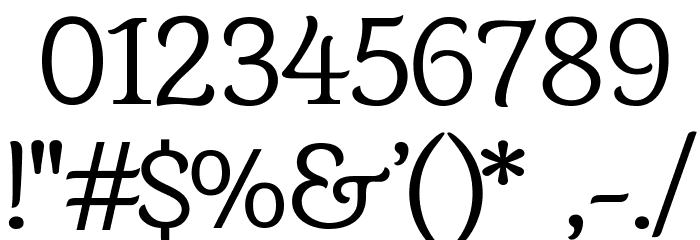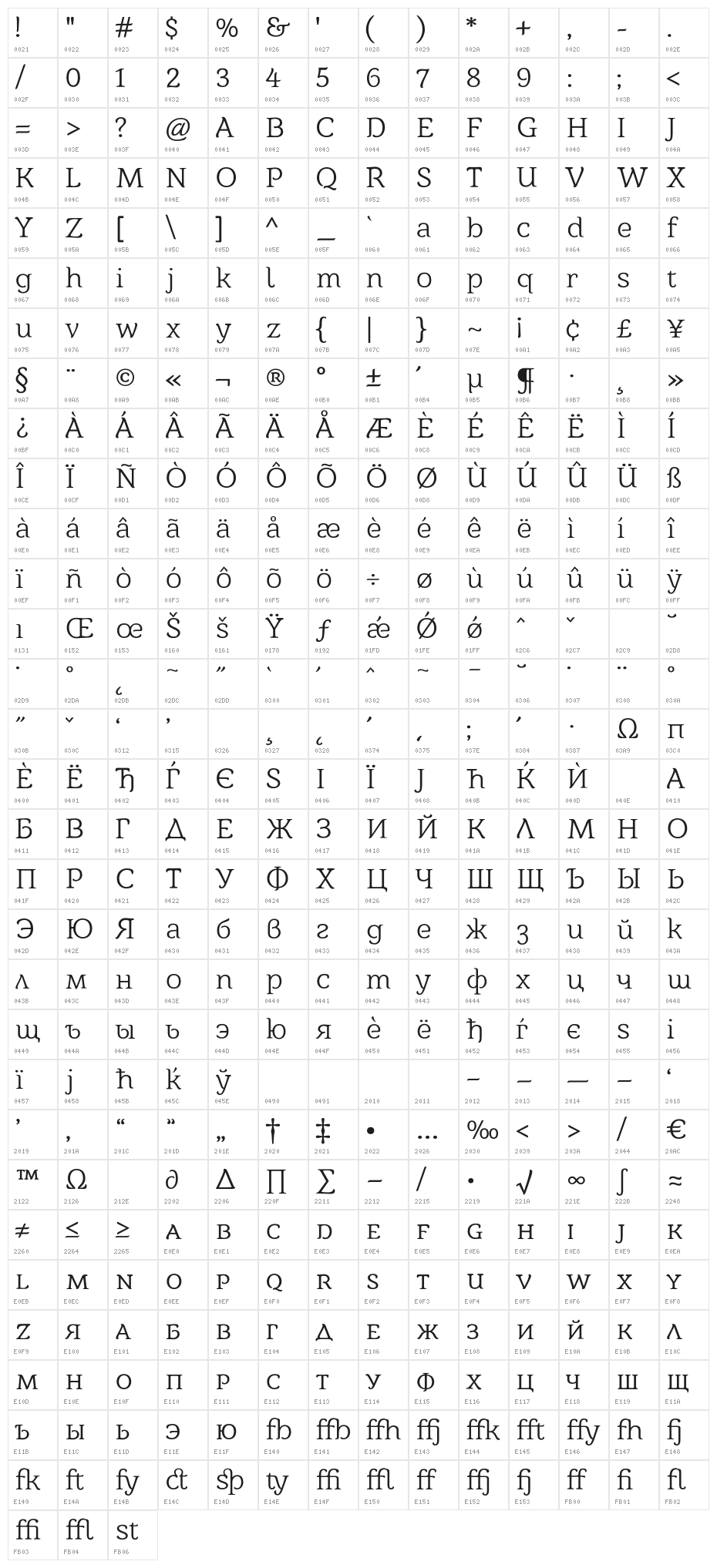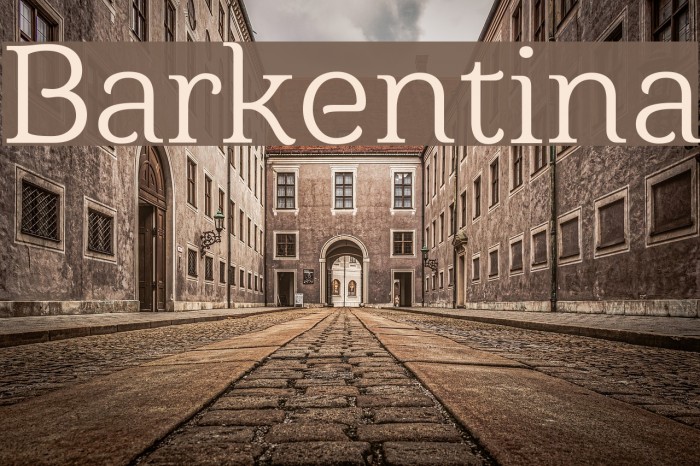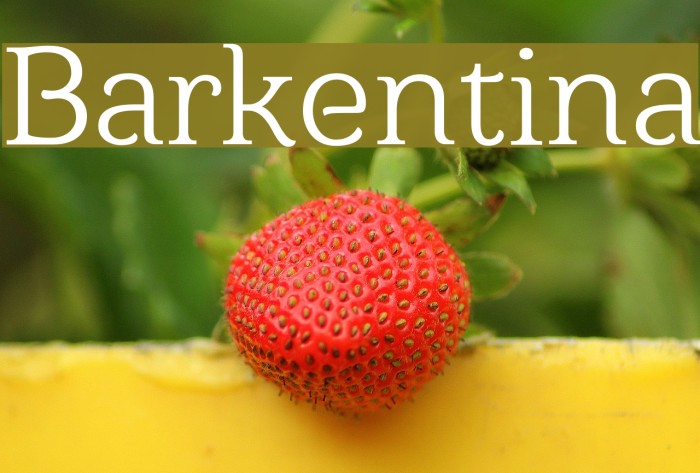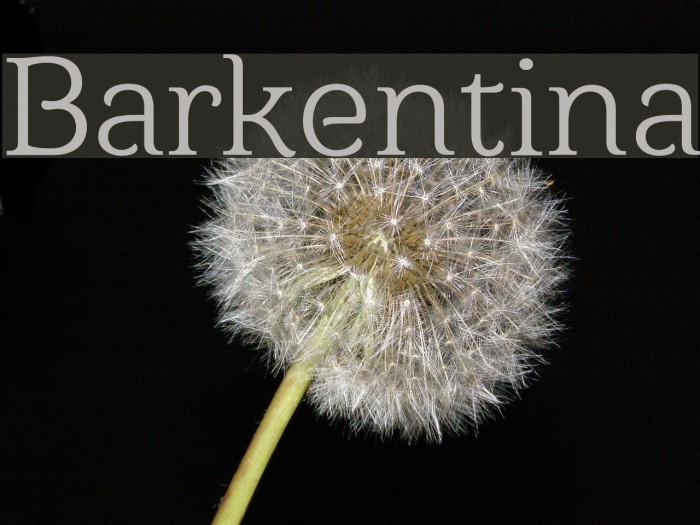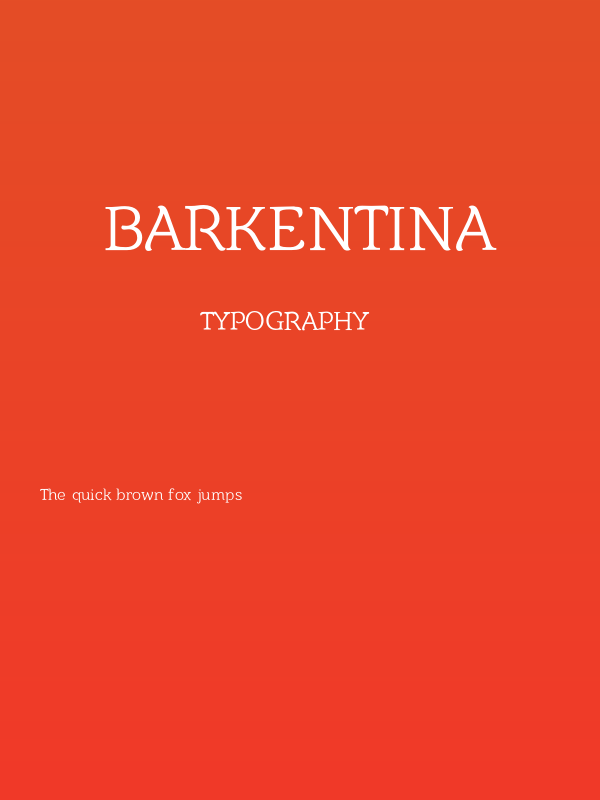
Barkentina Font
Barkentina Description
This font features a classic serif style with elegant curves and a refined structure. The uppercase letters are bold and commanding, while the lowercase letters maintain a consistent and harmonious flow. The numerals are well-proportioned, ensuring readability and balance. Special characters are designed with the same attention to detail, offering a cohesive look across all glyphs. The overall design is sophisticated, making it suitable for formal and professional applications. The serifs are pronounced, adding a touch of tradition and authority to the text.
| Proposed Projects | Ideal for book covers, formal invitations, corporate branding, and editorial design. |